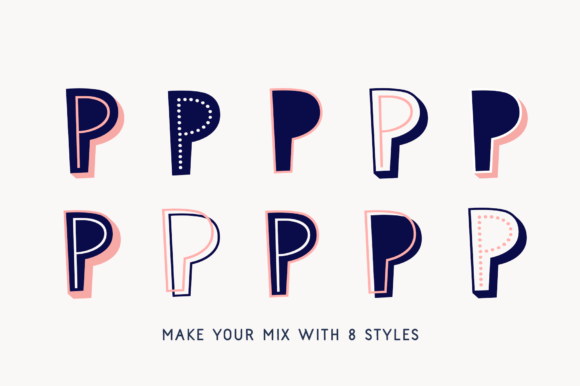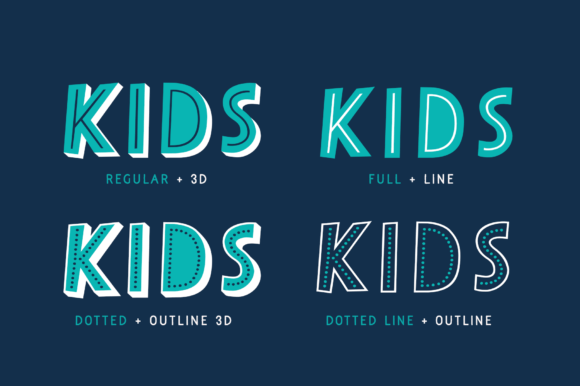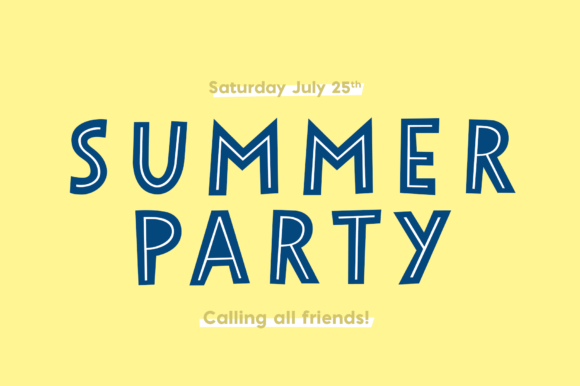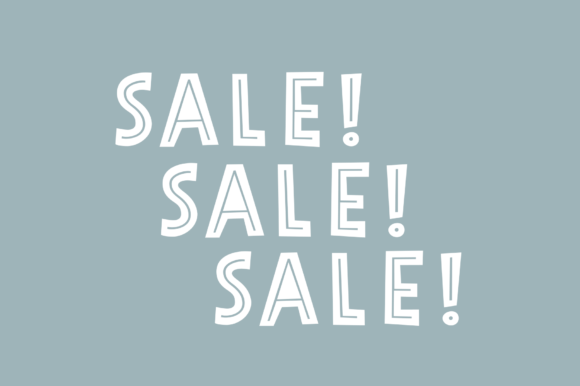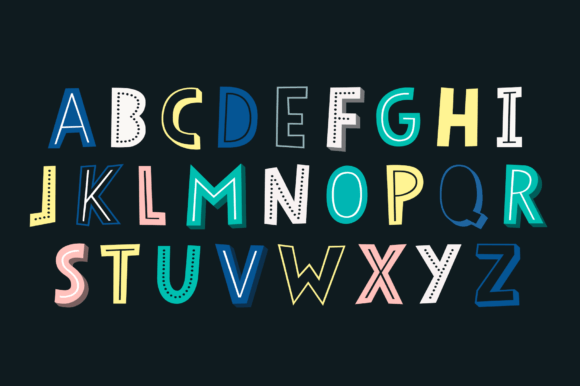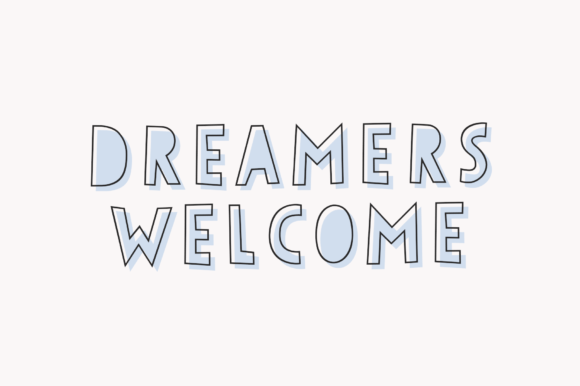
Introduction to Papercute Inline Font
Have you ever stared at a blank sheet of paper, waiting for inspiration to strike, only to be met with a sea of blank stares? It’s a familiar feeling for many designers, but what if we told you there’s a way to break through that creative block and unleash your inner artist? Enter the Papercute Inline Font, a delightful layered hand-drawn font that’s as easy to read as it is to play with.
Designed by the talented duo Fanny Coulez & Julien Saurin in the heart of Paris, this design resource is a game-changer for any creative project. With 8 different styles to choose from, including 3D, outline, full or dotted line, you can mix and match to create unique and charming works of art. And the best part? You can superimpose them with a compatible software like Photoshop, giving you complete control over color and design.
Key Features of Papercute Inline Font
- Papercute Inline Font is a high-quality design resource, perfect for creative projects that require a unique touch.
- Papercute Inline Font boasts a large character set, including uppercase and lowercase letters, numbers, and punctuation marks.
- The font’s unique inline design makes it ideal for use in illustrations, graphics, and other creative projects where a stylized font is required.
- The font’s resolution is optimized for high-quality printing and digital display, making it suitable for a wide range of applications.
Honest Review: Papercute Inline Font
- ✨ Beautiful, delicate design that adds a touch of whimsy to any creative project.
- ✨ Highly customizable, with a transparent background that makes it easy to layer with other design elements.
- ⚠️ Limited character set, which may not be ideal for longer texts or projects that require a wide range of letters and symbols.
- ⚠️ Not suitable for large-scale designs or titles, as the delicate design may get lost in bigger typography.
Overall, I’m impressed with the Papercute Inline Font. While it may have some limitations, its unique design and high quality make it a valuable addition to any designer’s toolkit. If you’re looking for a creative and customizable font for your next project, I highly recommend giving it a try.
Papercute Inline Font
To get the most out of Papercute Inline Font, experiment with different font sizes and colors to create a visually appealing design. You can also combine it with other design elements to add depth and interest to your creative project.
Papercute Inline Font is ideal for use in various creative projects, such as branding, packaging, and editorial design. Its high-quality and transparent background make it a great design resource for any professional or hobbyist designer.